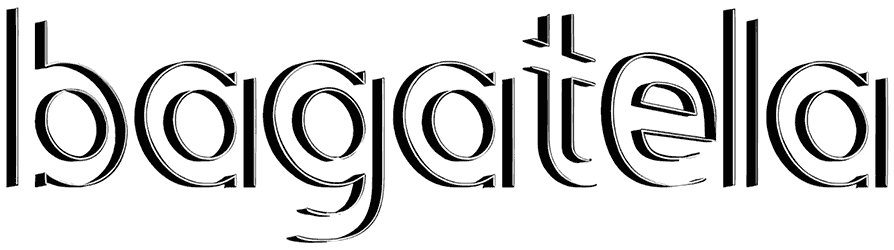
Bagatela Font
For reaching the first base in devising any tech magazine, signs, branding, or other things, you need an outline font with a soft shade that defines a strong face to be distinctive from others. Herein, Bagatela, as a fan…
For reaching the first base in devising any tech magazine, signs, branding, or other things, you need an outline font with a soft shade that defines a strong face to be distinctive from others.
Herein, Bagatela, as a fancy font with a magical face while leaving out uppercase letters and numbers, comes across to show off its ability to push you as a front-runner in designing. In case you need more assets, take a look at our library.